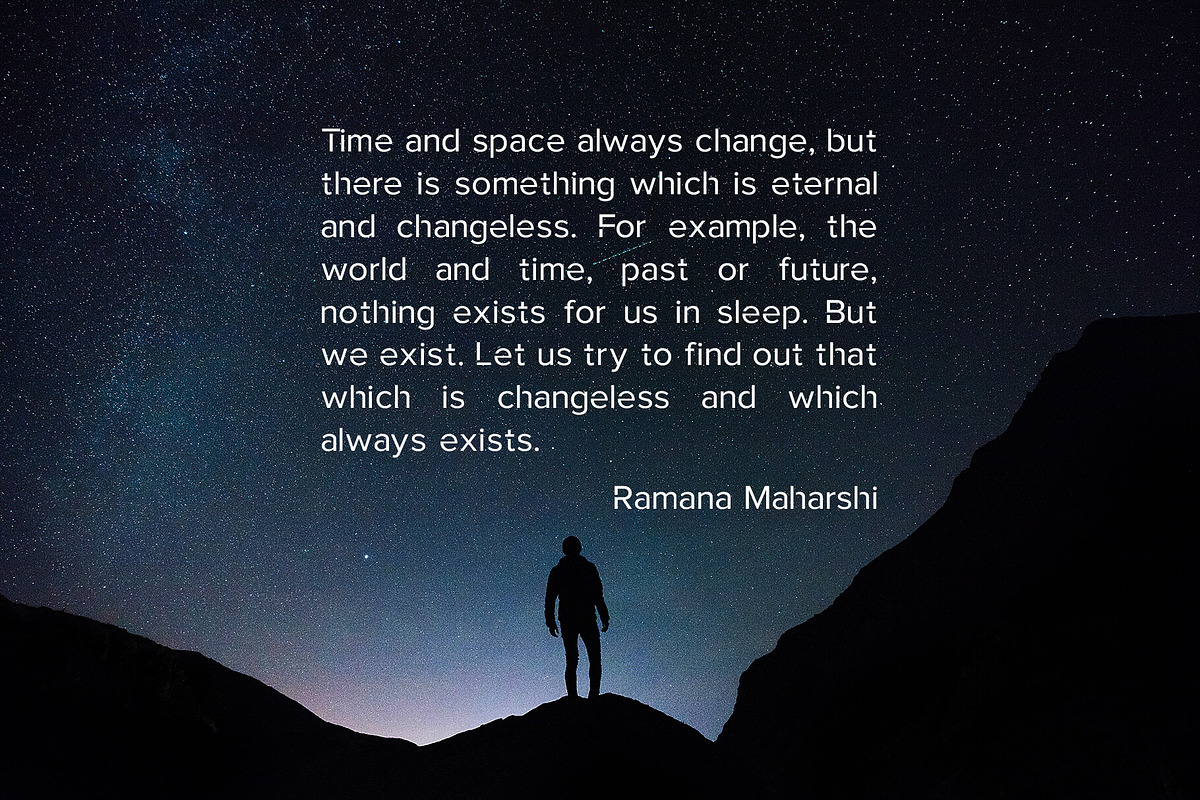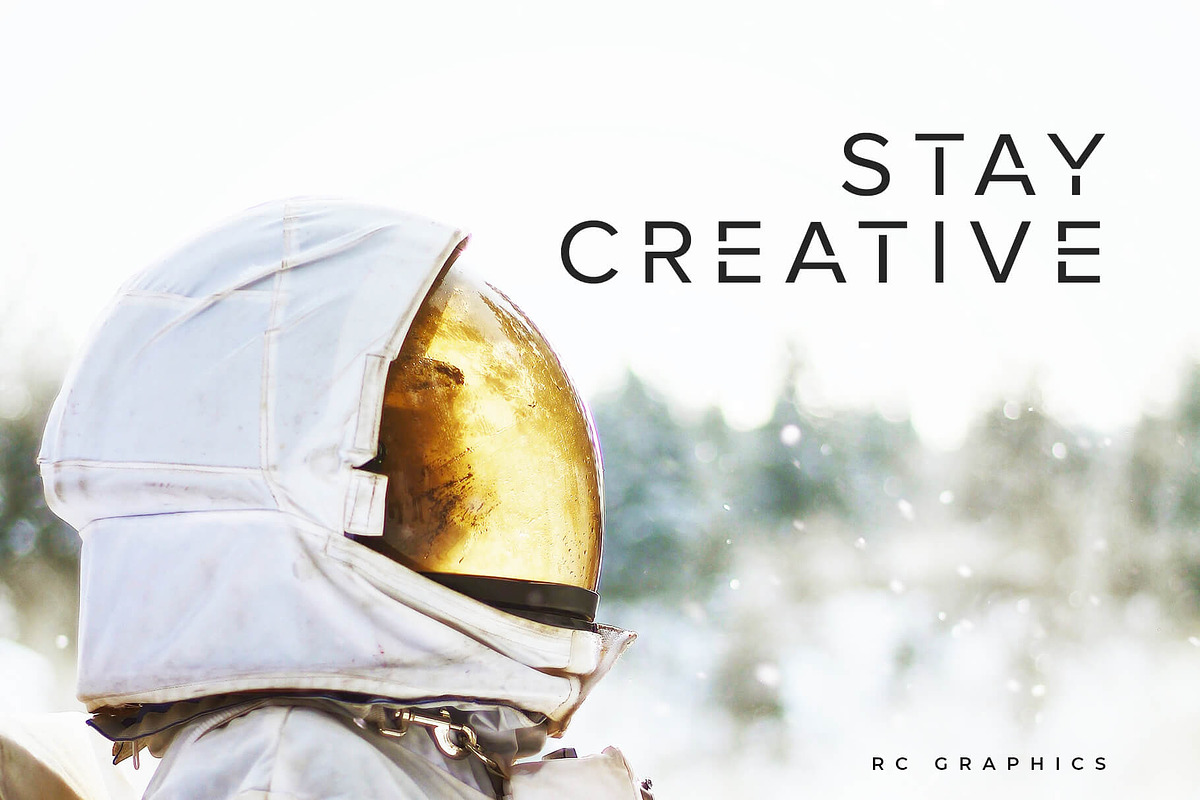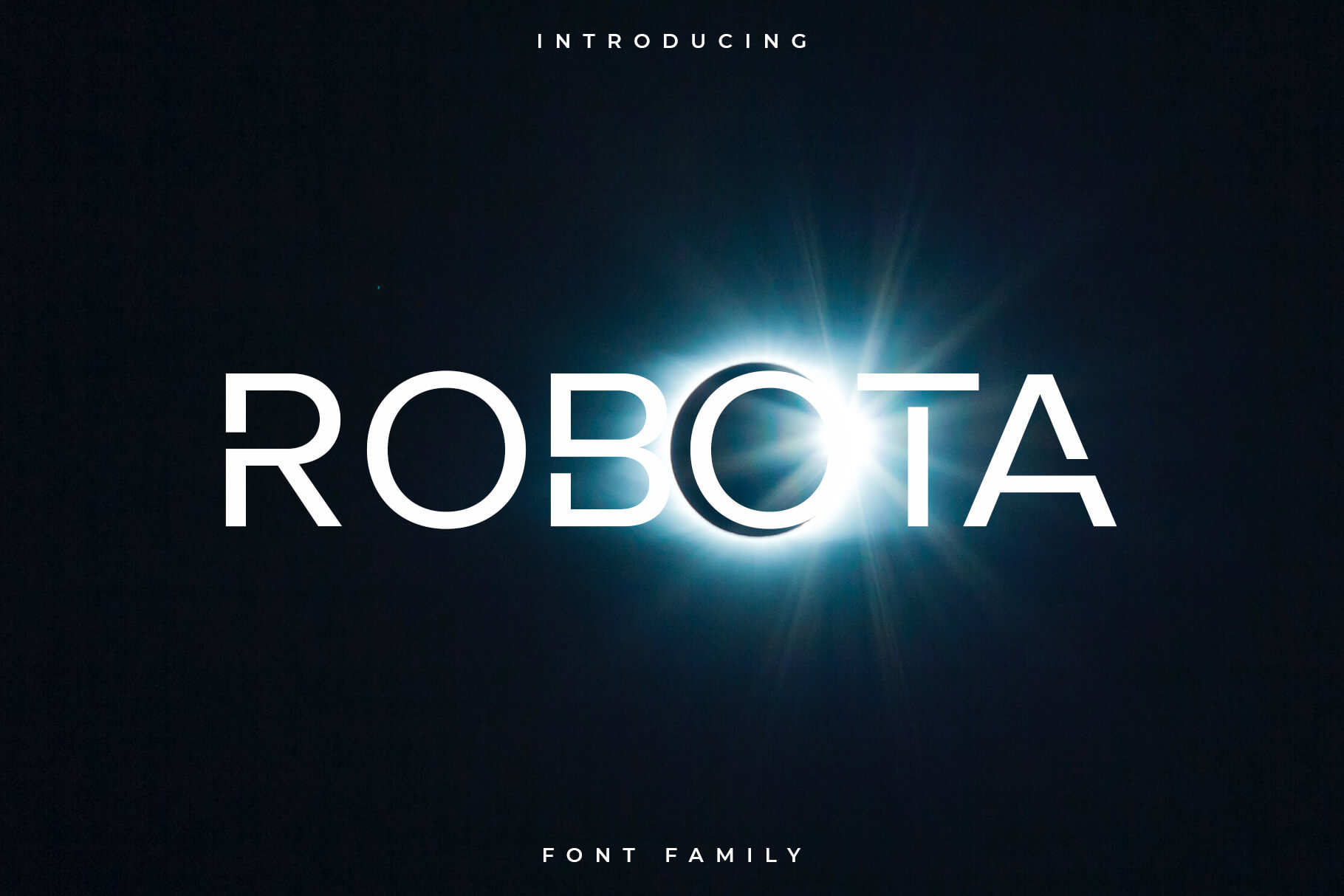
Robota Font Family - Sans Serif
Robota is a modern and clean sans serif font. It’s a versatile font family designed for strong, classic branding. Robota is perfect for any branding, logos, magazines, videos, weddings, quotes, print, product packaging, website, clothing designs and much more.
- Uppercase letters
- Lowercase letters
- Multilingual (Foreign language characters)